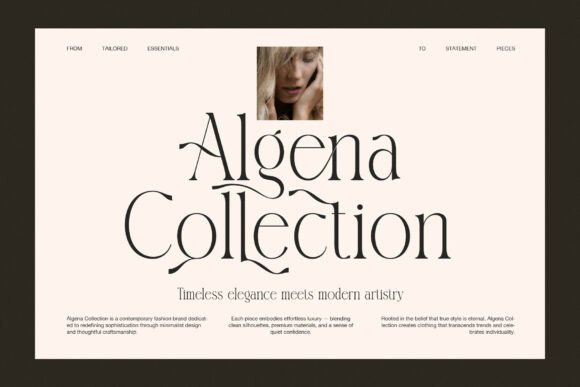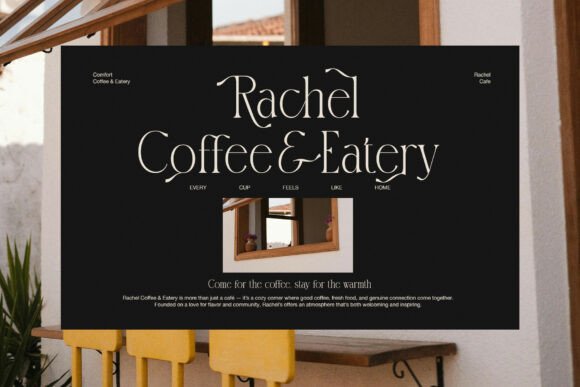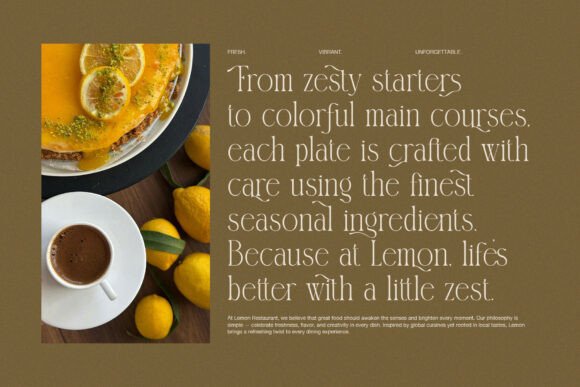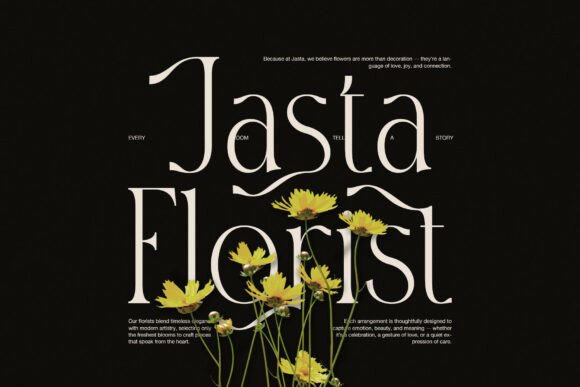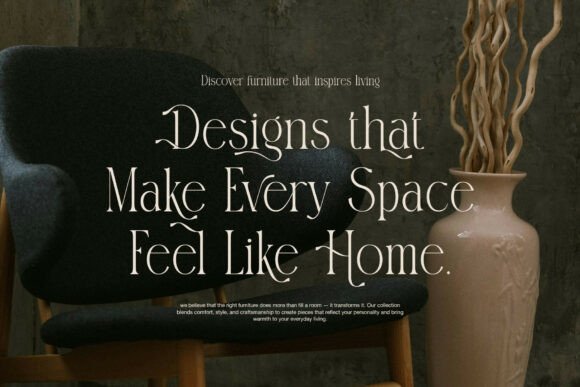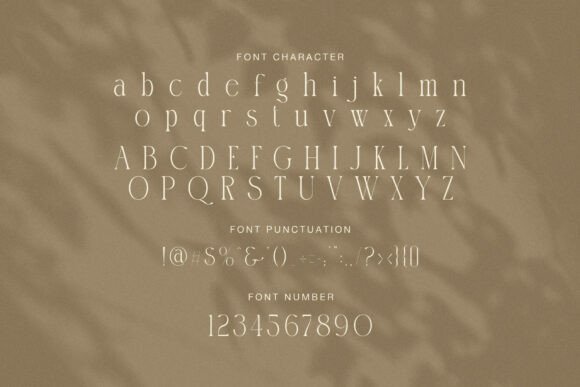
Discover the Elegance of Datte Font: A Timeless Serif for Modern Design
In the world of typography, few fonts manage to convey a sense of calm beauty, balance, and refined clarity. Datte Font, however, stands out as a shining example of elegance and sophistication. This exquisite serif font is specifically designed to bring a touch of classic charm to modern designs, making it an ideal choice for designers and crafters looking to elevate their visual storytelling.
The Inspiration Behind Datte
Datte’s creation was inspired by the timeless appeal of editorial typography and the organic beauty of natural forms. The font’s designer sought to blend the classic structure of traditional serif fonts with the softness of gentle curves and subtle contrast. The result is a font that exudes a sense of warmth, approachability, and refinement, perfect for designs that require a touch of sophistication.
Key Features of Datte Font
So, what makes Datte Font so special? Here are some of its key features:
- Elegant Serif Structure: Datte’s serif structure is reminiscent of classic typography, providing a sense of tradition and timelessness.
- Soft Curves and Gentle Contrast: The font’s soft curves and gentle contrast add a touch of warmth and approachability, making it perfect for designs that require a human touch.
- Carefully Crafted Letterforms: Each letterform in Datte has been carefully crafted to feel smooth and organic, ensuring that headlines appear confident and approachable.
- Strong Readability: Datte’s design prioritizes readability, making it suitable for use across both print and digital layouts.
Using Datte Font in Design
Datte Font’s versatility makes it an excellent choice for a wide range of design applications. Here are some ideas to get you started:
- Editorial Design: Datte’s elegant serif structure and refined clarity make it perfect for use in magazines, newspapers, and books.
- Branding and Packaging: The font’s warm and approachable feel makes it suitable for use in branding and packaging designs that require a touch of sophistication.
- Digital Design: Datte’s strong readability and smooth letterforms make it an excellent choice for use in digital designs, such as websites, blogs, and social media graphics.
Benefits of Using Datte Font
By choosing Datte Font for your design projects, you can enjoy a range of benefits, including:
- Timeless Appeal: Datte’s classic serif structure and elegant design ensure that your designs will remain timeless and relevant for years to come.
- Improved Readability: The font’s strong readability makes it easier for your audience to engage with your content, improving overall communication.
- Enhanced Visual Storytelling: Datte’s smooth letterforms and gentle contrast enable designers to create visually appealing stories that capture their audience’s attention.
In conclusion, Datte Font is an exceptional serif font that offers a unique blend of elegance, sophistication, and approachability. Its timeless appeal, strong readability, and versatility make it an excellent choice for designers and crafters looking to elevate their visual storytelling. Whether you’re working on editorial designs, branding and packaging, or digital projects, Datte Font is sure to bring a touch of refinement and clarity to your work.